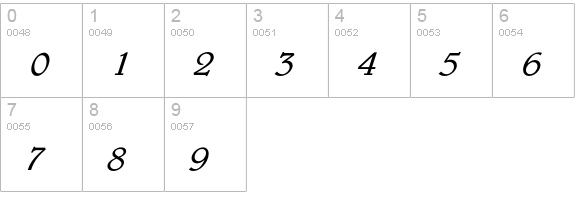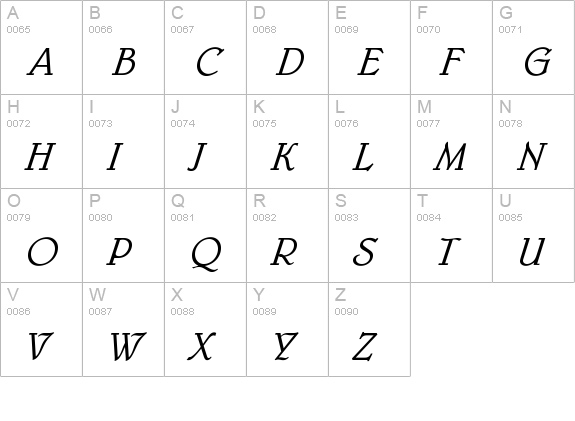
BelweEF-Italic Font Details
BelweEF-Italic is a distinctive, italic variant in the BelweEF typeface family \xE2\x80\x94 well suited to design and typography projects.
BelweEF-Italic is a stylish and elegant font that exudes sophistication and charm. Its sleek italic design adds a touch of modernity to any project, making it perfect for a wide range of applications. The flowing lines and delicate curves of this font give it a distinctive and classy look, ideal for luxury branding, wedding invitations, fashion magazines, and more. What makes BelweEF-Italic even more appealing is that it is available for free download at FontsMarket.com. This means that you can easily access this beautiful font to enhance your designs without any cost. With its timeless appeal and versatility, BelweEF-Italic is sure to elevate your projects and leave a lasting impression on your audience. Download it today and add a touch of sophistication to your creations.